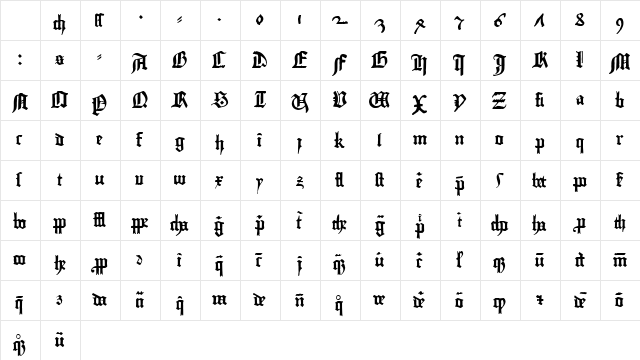
Gutenberg Bibelschrift Regular
Design Context for Gutenberg Bibelschrift Typeface
Gutenberg Bibelschrift is a composed and adaptable typeface that performs quietly and consistently across a wide range of design contexts.